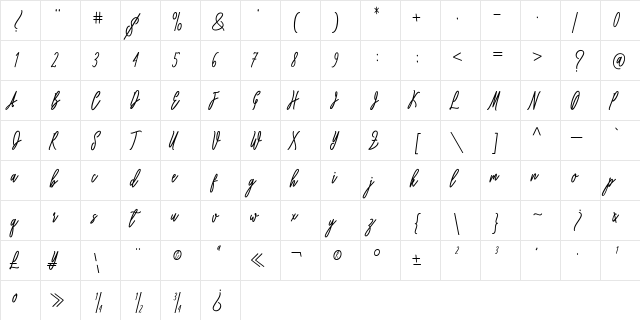
willona love Regular
| Foundry | Felulok |
Design Context for willona love Typeface
willona love is a composed and adaptable typeface that performs quietly and consistently across a wide range of design contexts.